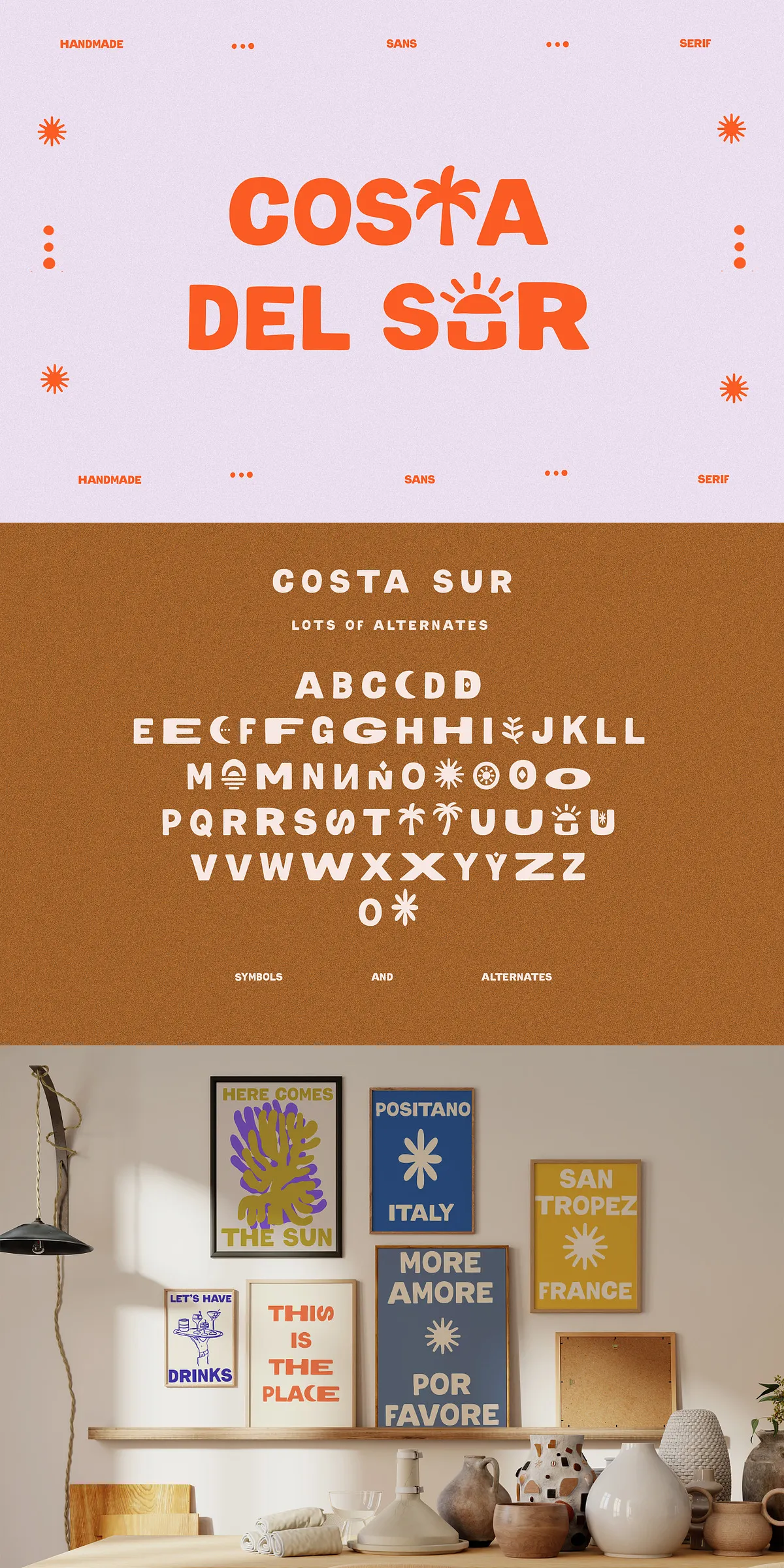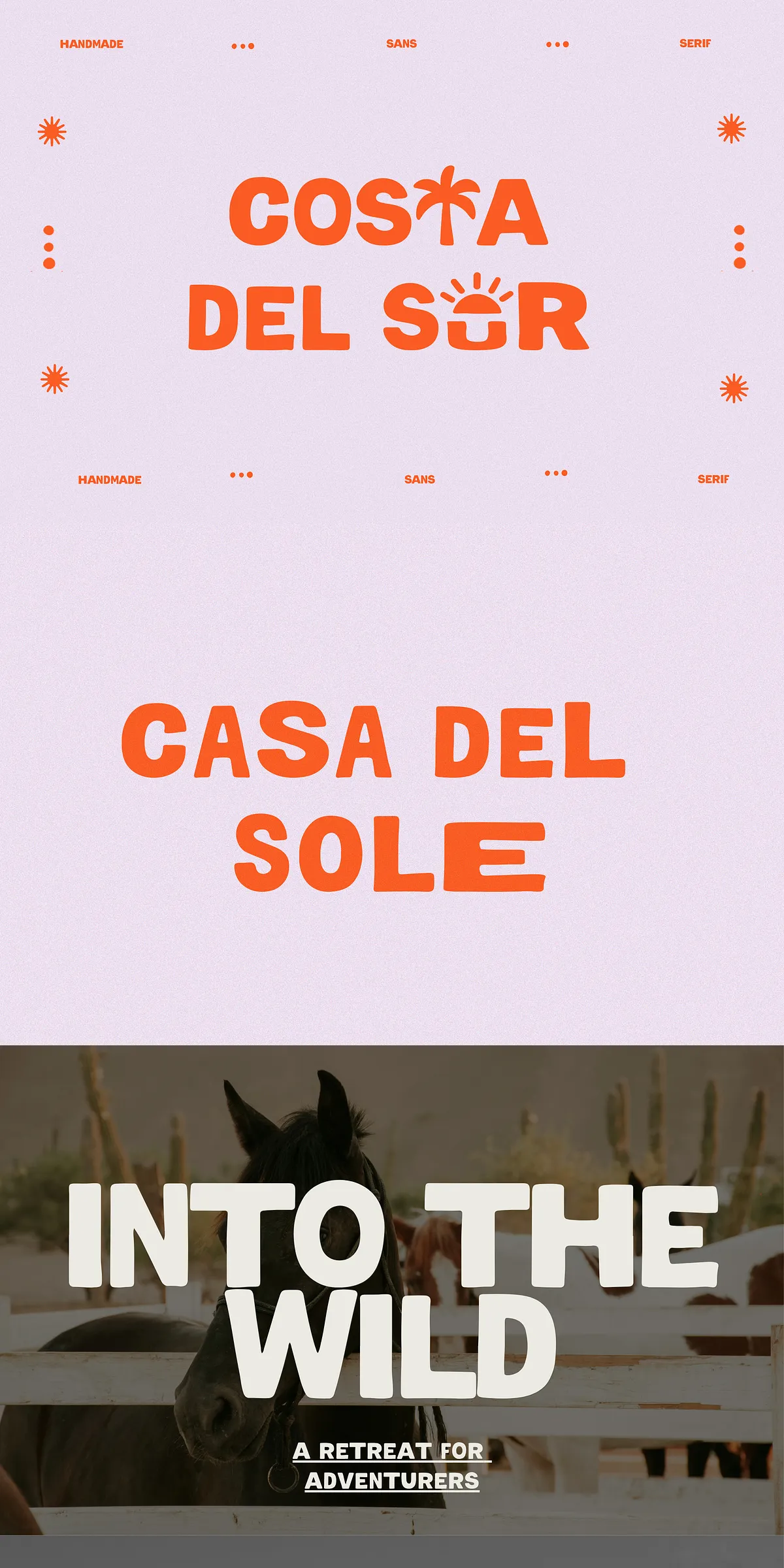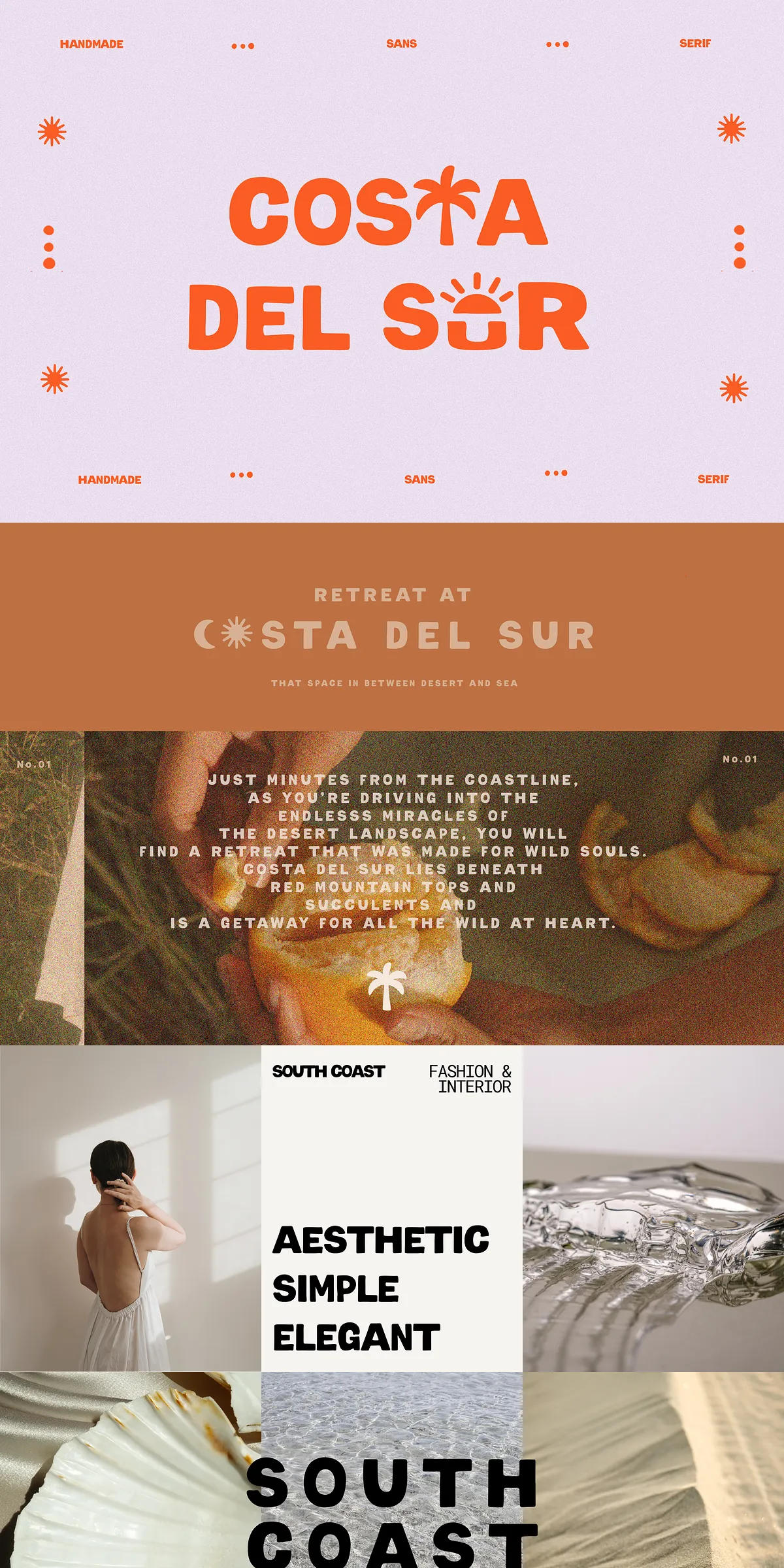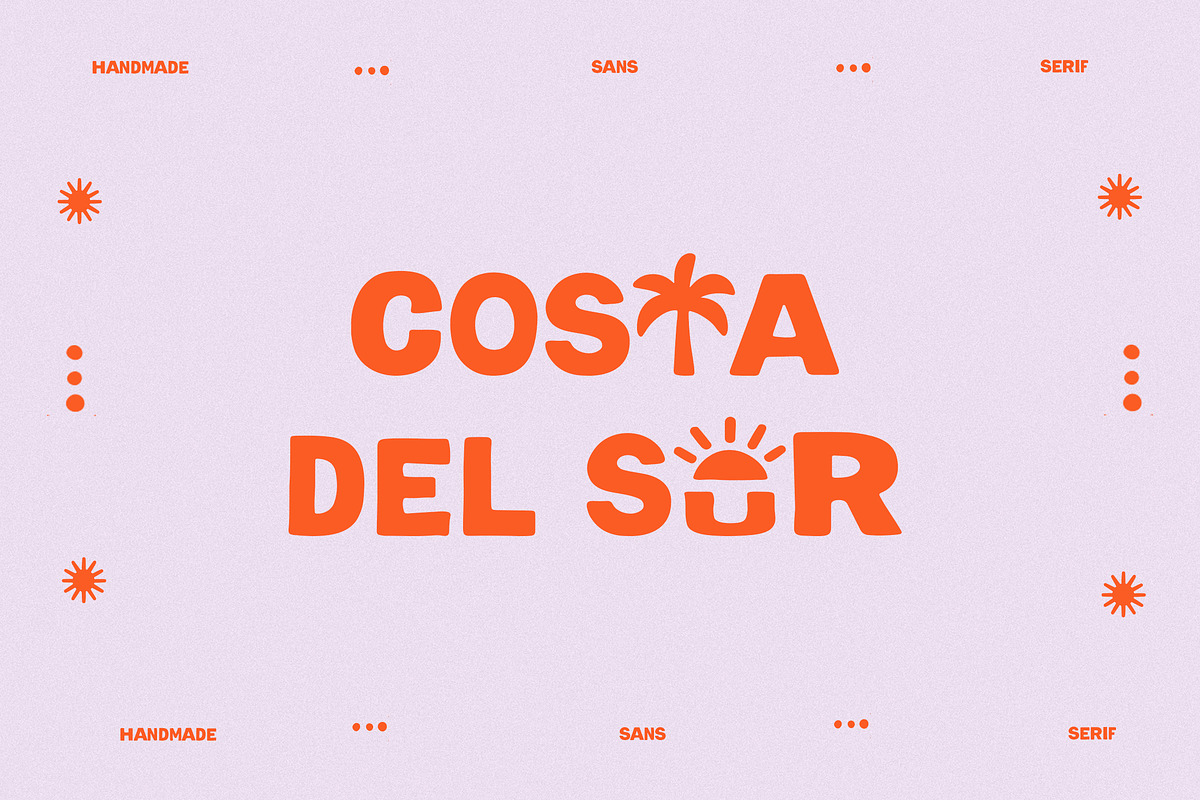
Step into a world of sun-drenched days, salty air, and laid-back confidence. Handwritten Coastal Symbol isn’t just a typeface — it’s a feeling. This bold, handmade sans-serif font captures the essence of bohemian summers, free-spirited wanderlust, and authentic imperfection. With a strong, confident presence and a soft, handwritten touch, it brings a real sense of warmth and personality to every project.
Perfect for brands that want to feel grounded yet effortlessly cool, this font bridges the gap between bold design and natural elegance. Whether you’re crafting a label, designing a social post, creating a logo, or building a brand identity, Handwritten Coastal Symbol instantly evokes the carefree magic of the coast.
Signature Features That Bring the Outdoors In
What sets this font apart are the **unique, hand-drawn symbol alternates** that turn every word into a story:
- Palm trees that wave across your headlines
- Sunbursts radiating bright energy
- Hand-drawn flowers that bloom across your text
- Playful ligatures that create seamless, artistic connections between letters
These aren’t just decorative flourishes — they’re visual metaphors of summer joy, organic design, and unstructured beauty. They make your message feel lived-in, personal, and deeply connected to nature.
More Than a Font — A Complete Coastal Design Kit
These ready-to-use designs are perfect for:
- Marketing campaigns for beaches, travel brands, or wellness studios
- Instagram posts, flyers, and social media promotions with a natural, artistic flair
- Merchandise, such as tote bags, notebooks, and wall art
- Event branding for music festivals, yoga retreats, or summer markets
With these prints, you’re not just selecting a font — you’re gaining a full visual language for summer storytelling.
Why This Is the Ultimate Boho Brand Tool
Other fonts try to mimic nature. Handwritten Coastal Symbol embodies it. Its imperfect strokes, varying line weights, and organic forms reflect the real world — not a digital simulation. This authenticity is what modern audiences crave.
Use it to:
- Create brand names that feel personal and memorable
- Design logos and wordmarks with emotional depth
- Write body copy that feels warm and inviting
- Build social media content that stands out with soul
Don’t just design — feel. Let every letter you choose carry the breeze of summer, the softness of sand, and the joy of living in the moment.